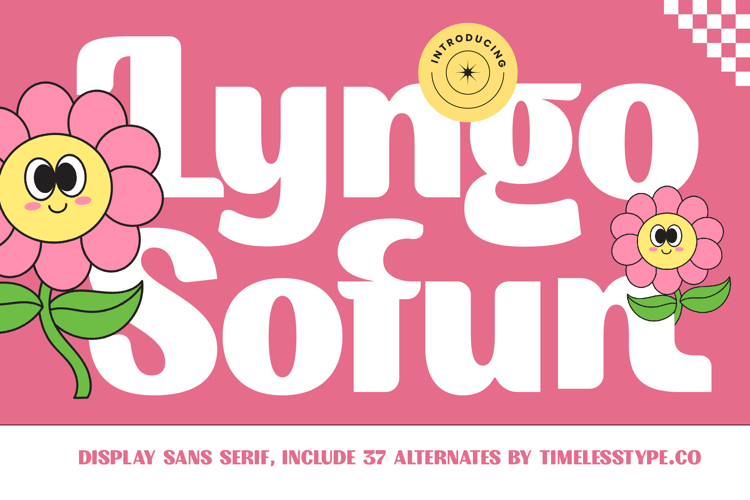
Lyngo Sofun - Display Sans Serif
The Lyngo Sofun Typeface is a display sans serif font with a bold, cheerful, and playful style. Featuring 37 stylistic alternates, this font offers creative flexibility to design typography that feels friendly, fun, and expressive. Its thick letterforms with soft corners bring a modern yet retro-inspired vibe, making it an excellent choice for design projects that aim to showcase joy, freshness, and strong visual appeal.
This typeface is highly effective in editorial design, especially for lifestyle posters, youth magazines, and illustrative book covers. The available alternates provide visual variety, allowing layouts to appear more dynamic and lively.
In branding and packaging, Lyngo Sofun is ideal for children’s products, sweet food & beverage brands, casual fashion, and creative merchandise. Its bold and playful aesthetic makes brand identities feel fun, approachable, and instantly recognizable.
For entertainment and promotional design, this font works beautifully on festival posters, creative campaigns, pop music album covers, and family or community event branding. Its joyful character enhances visual storytelling with a burst of positive energy.
In the field of digital design, Lyngo Sofun stands out across social media content, website branding, digital advertising, and motion graphics. With multilingual support, it adapts easily to global projects while maintaining its fun and friendly atmosphere.
In short, Lyngo Sofun Typeface is a display sans serif font designed to deliver cheerfulness, playful energy, and bold modern style. Perfect for editorial, branding, packaging, entertainment, advertising, and digital campaigns, this font transforms typography into a joyful, fun, and memorable design element.